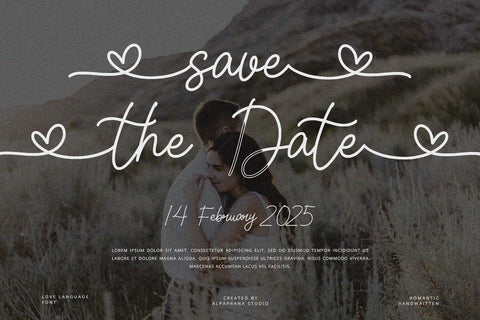
Love Language - Handwritten Font
Love Language is a handwritten font with romantic and modern feels. It will be perfectly used for Branding, Logo Design, Lettering, Logotype, Clothing, Poster, magazine, packaging, posters, shopping bags, t-shirts, book covers, photography, special events and other design project.